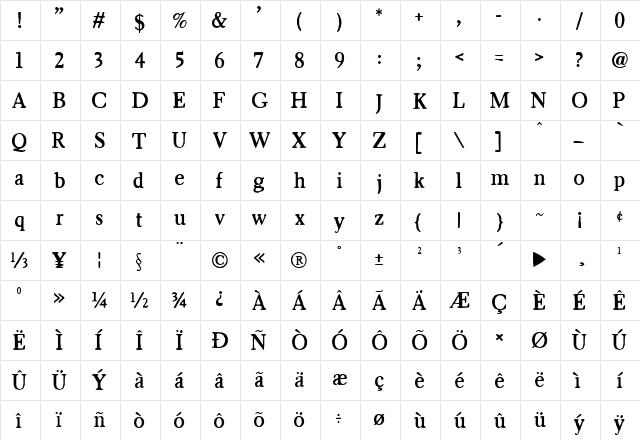
Chronicle Regular
Design Context for Chronicle Typeface
Chronicle is a composed and adaptable typeface that performs quietly and consistently across a wide range of design contexts.
Pro Tip: Pair Chronicle with a font of contrasting weight or personality to build a more expressive typographic hierarchy.